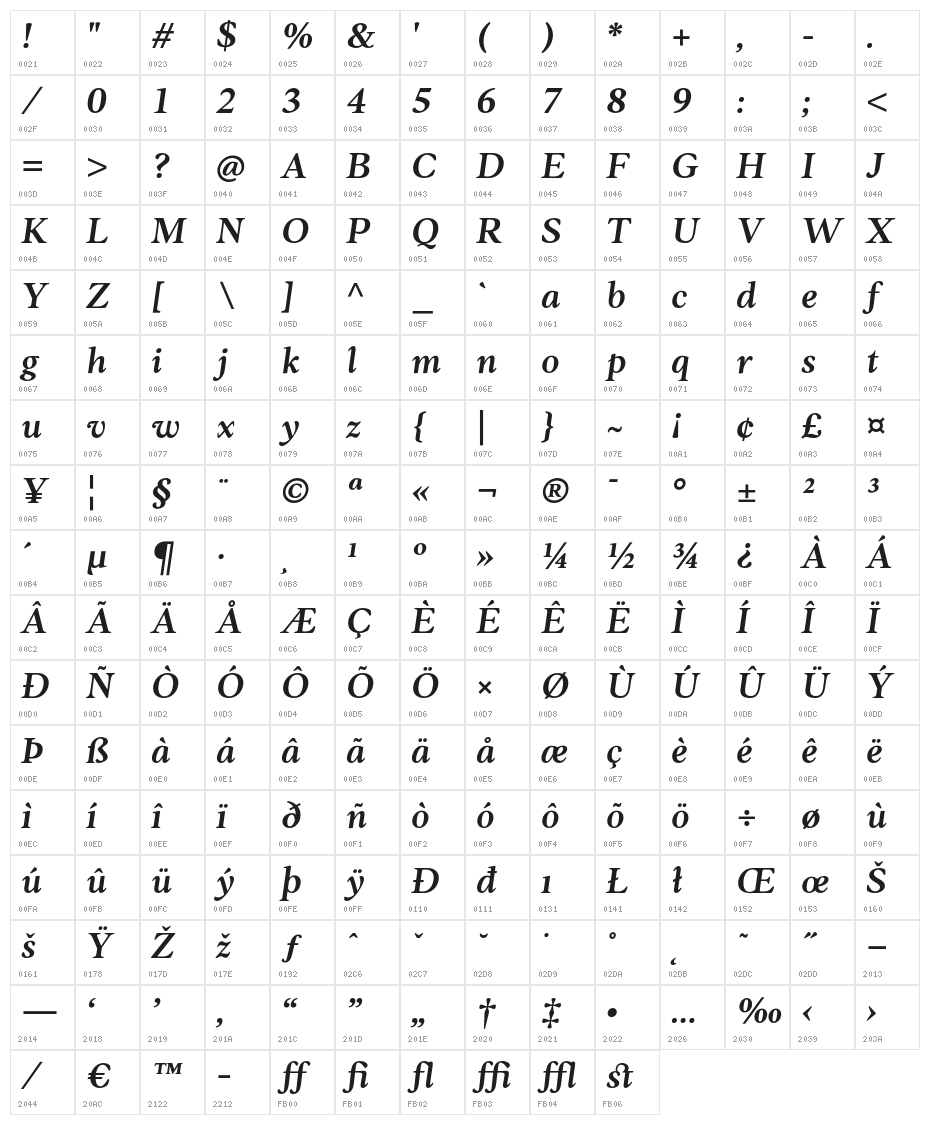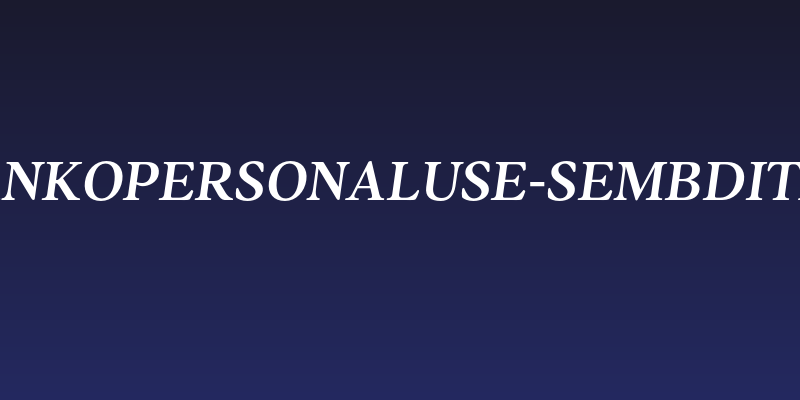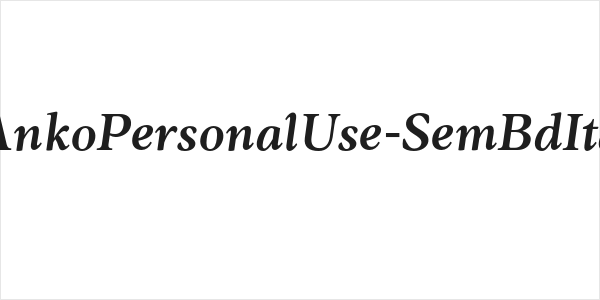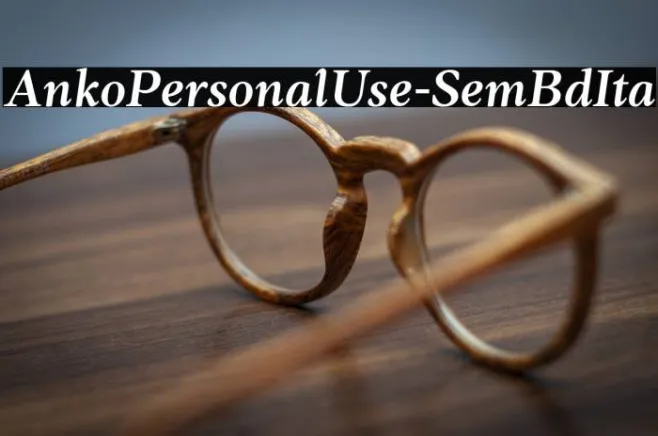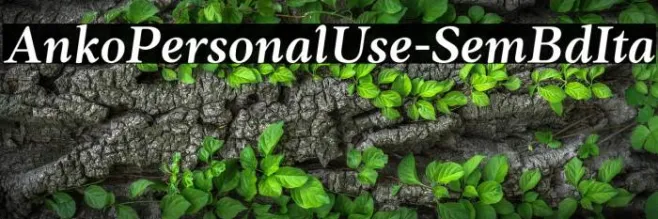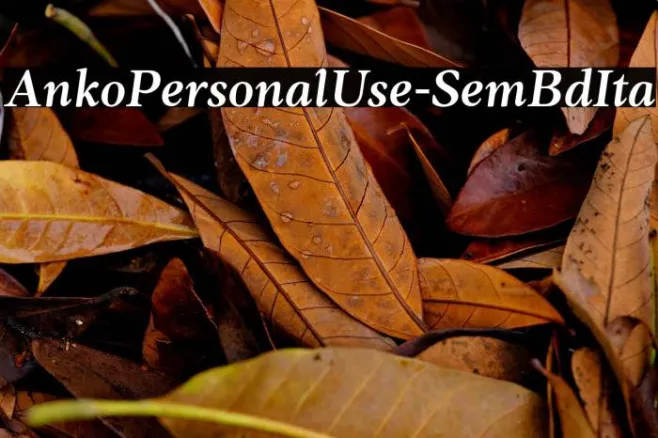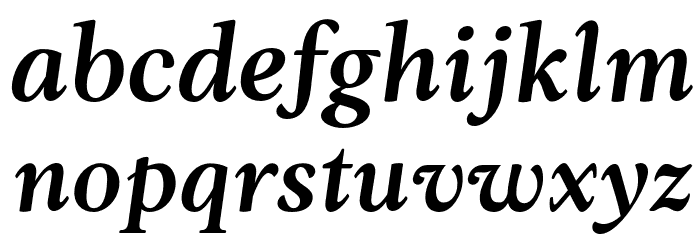
AnkoPersonalUse-SemBdIta Font
AnkoPersonalUse-SemBdIta Description
This font exhibits a classic serif style with a semi-bold weight and italicized form, giving it a sophisticated and elegant appearance. The uppercase letters are well-defined with a slight slant, enhancing the italic effect. Lowercase characters maintain a consistent style, with smooth curves and a balanced structure. Numerals are clear and legible, matching the overall aesthetic of the font. Special characters are thoughtfully designed, ensuring versatility in various applications. The font's design is suitable for projects that require a touch of elegance and readability.
| Proposed Projects | Ideal for use in formal invitations, elegant branding, book covers, and editorial design. |